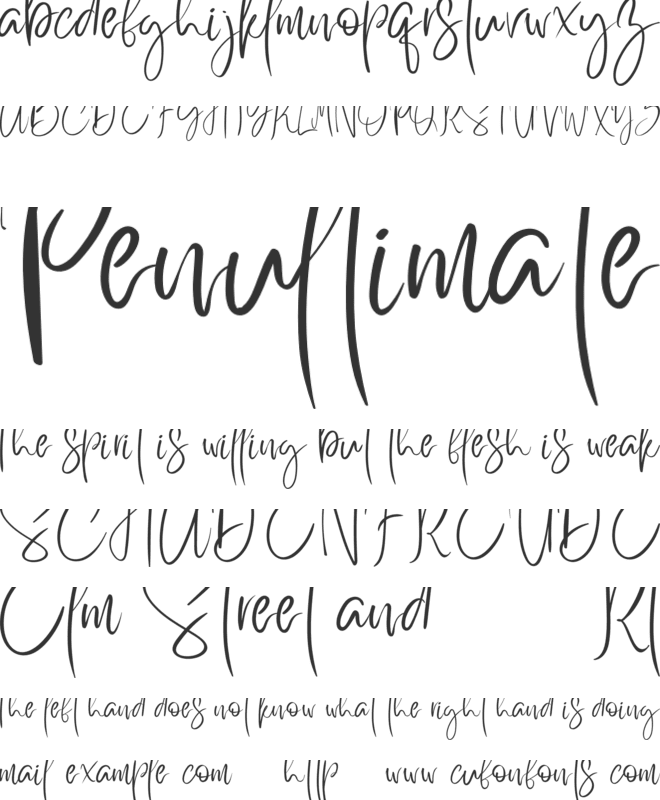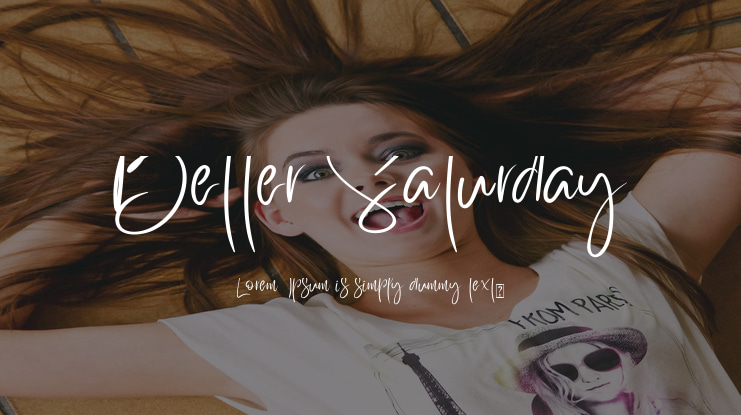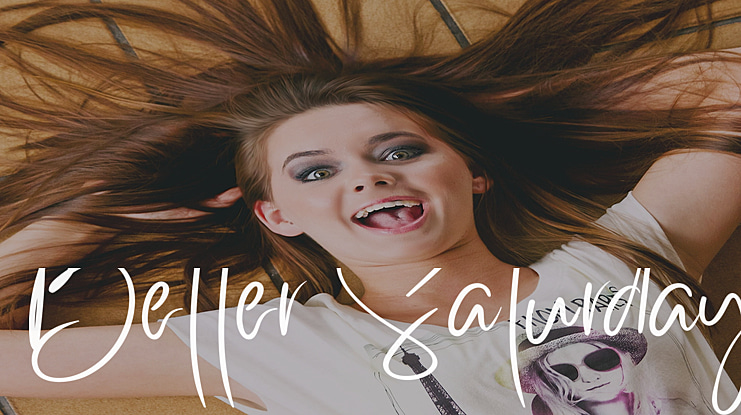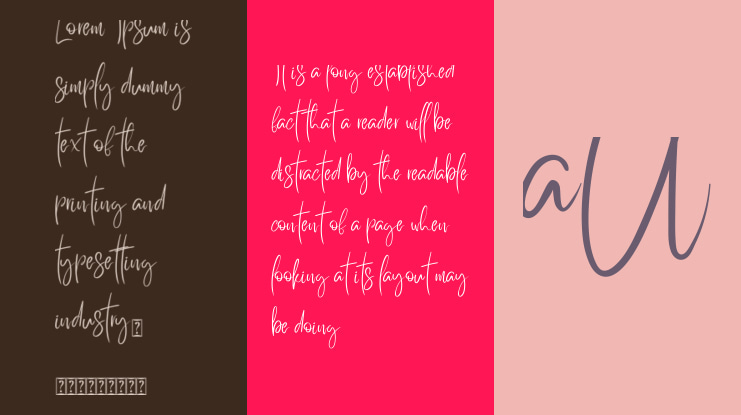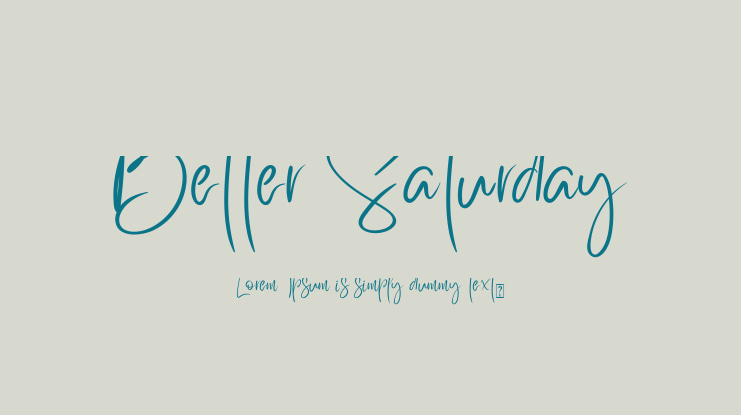
Introducing Better Saturday for your better work. With classy and natural hadwritten style, it brings a classy and chic typeface. Better Saturday is best used for wedding, branding, logotype and quotes.